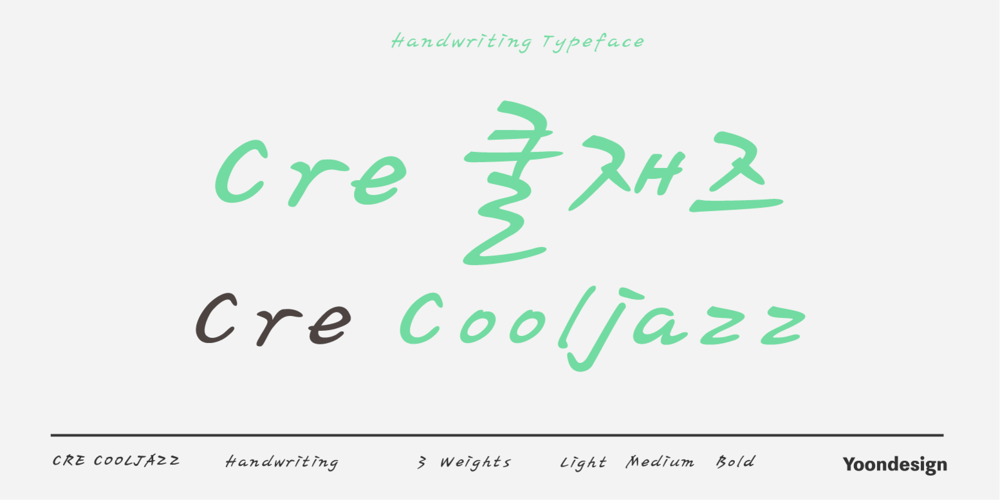
Cre CoolJazz Font Family was designed by Yoon Design Team and published by Yoon Design. Cre CoolJazz contains 1 styles and family package options. Cre CoolJazz Family is script style. It relies on calligraphic simplicity to reach its artistic sophistication. The name is derived from the musical term, cool jazz in 1950th – an integral part of most musical melodies. Its aim was to give a feeling of freedom when people listen to jazz melodies but temperate manner. This elegant sans serif comes across as lively, yet comfortable. This font family has 3 styles and is ideal for headlines, and most oversize applications i.e.- mastheads, posters, and flyers.